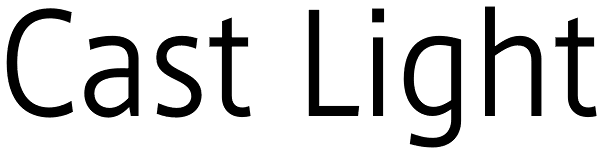
Cast
Cast is a subtle sans serif type family of six weights with great properties for professional typography. Open forms, strive for perfect curves and a modern and slightly technical touch are attributes of Cast. The weights from light to black are...